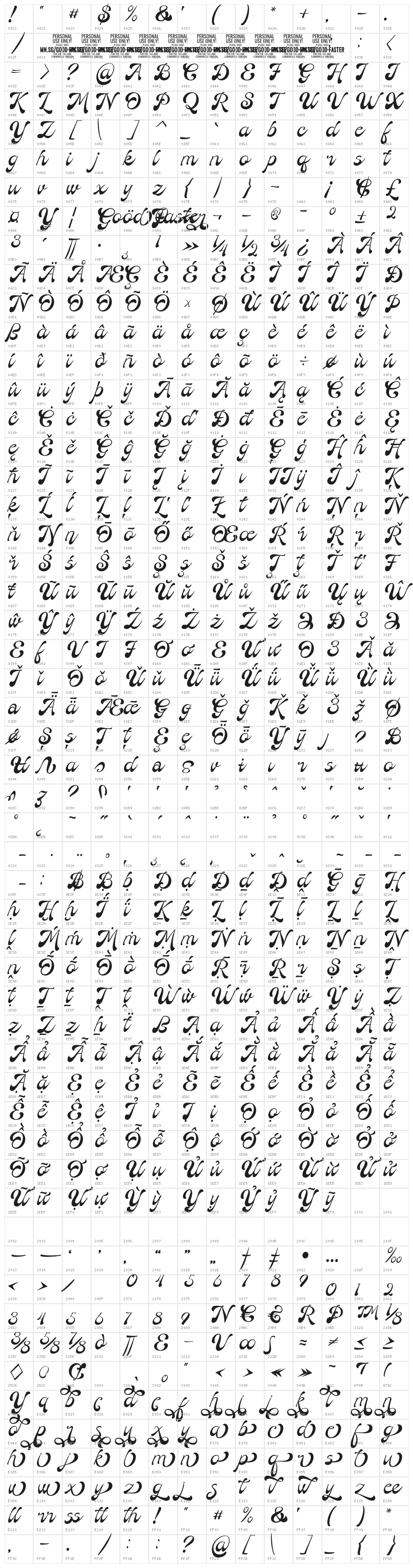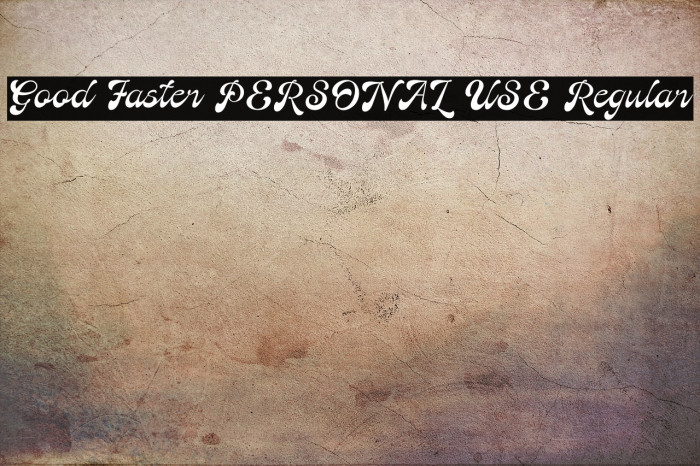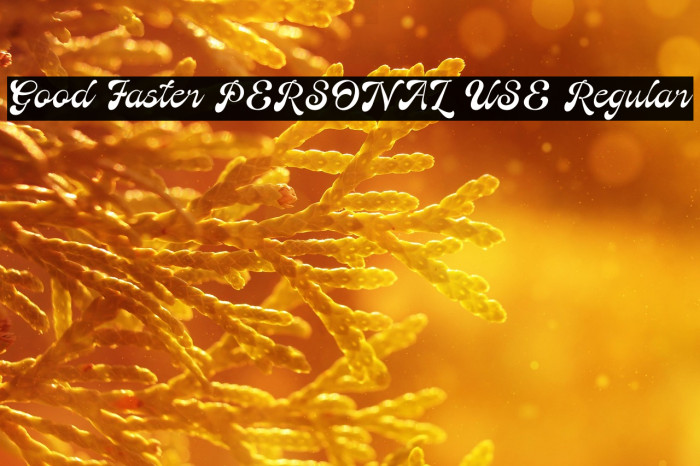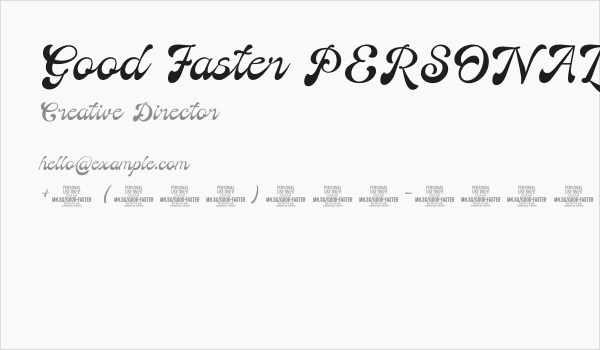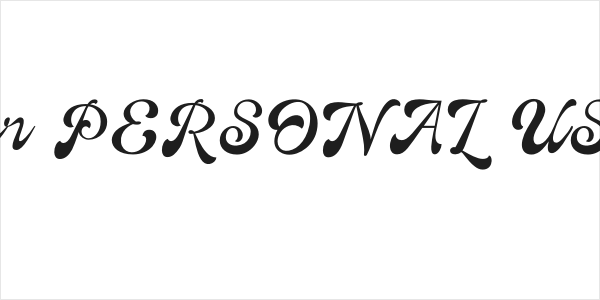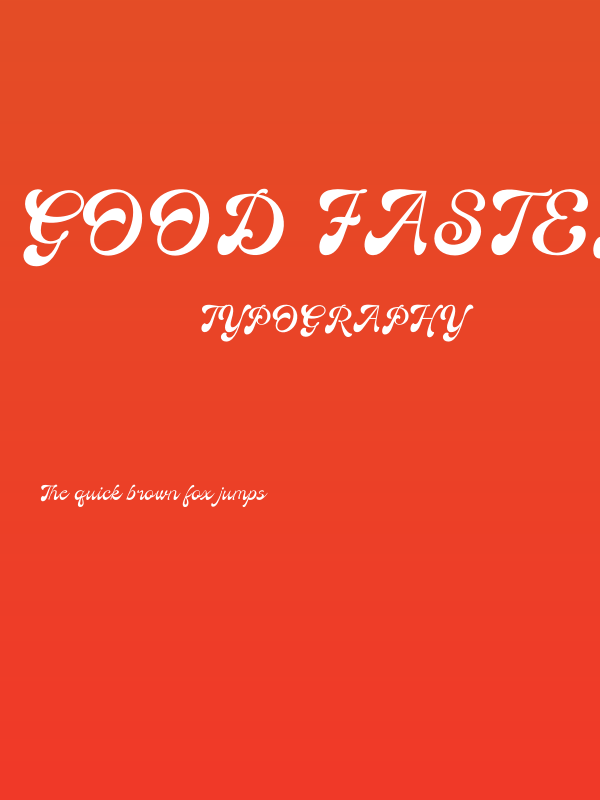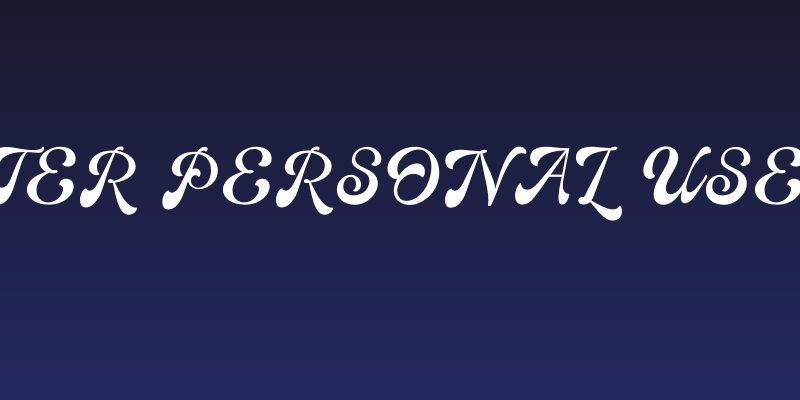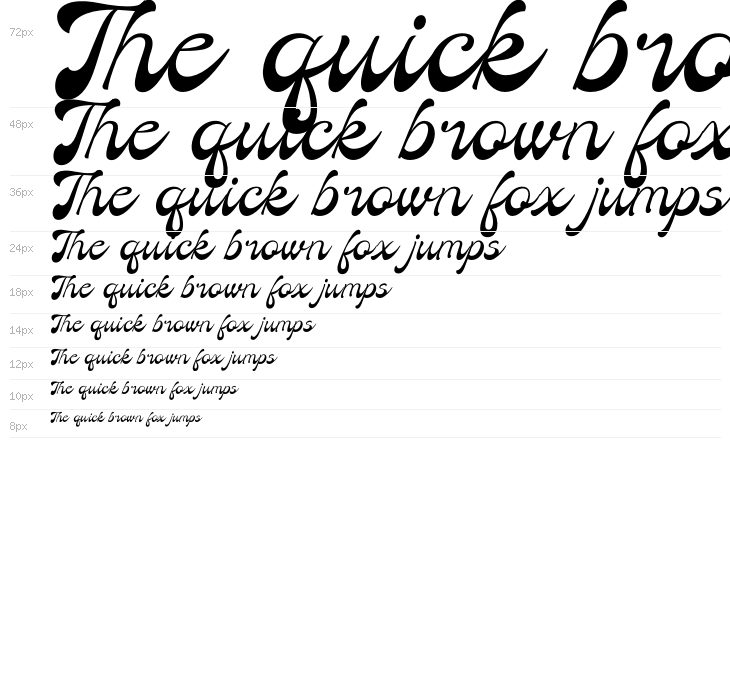
Good Faster PERSONAL USE Regular Font
Good Faster PERSONAL USE Regular Description
This font features a bold and flowing script style, characterized by its elegant and cursive letterforms. The uppercase letters are ornate, with sweeping curves and flourishes that give a sense of movement and grace. The lowercase letters maintain a consistent style, with smooth connections between characters, enhancing the font's fluidity. The numbers and special characters are designed to match the overall aesthetic, providing a cohesive look across all glyphs. This font's artistic flair makes it suitable for creative and decorative applications.